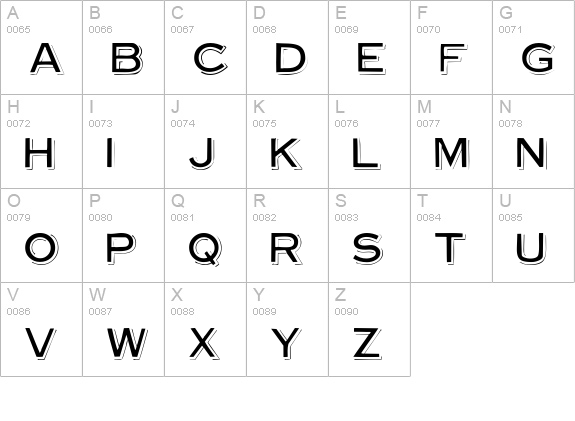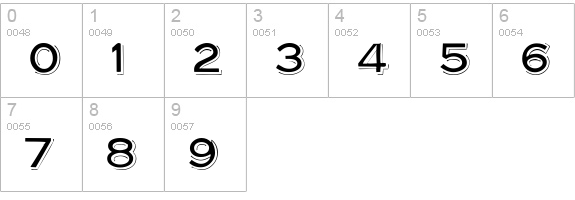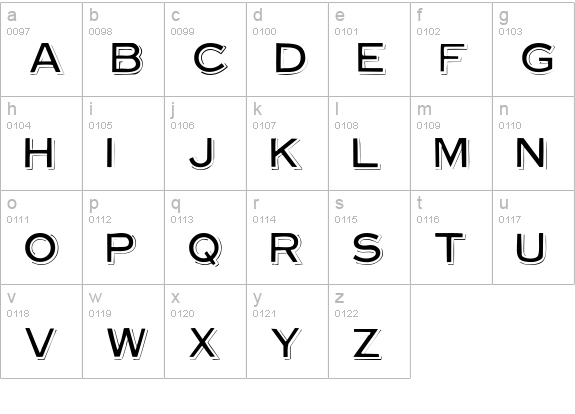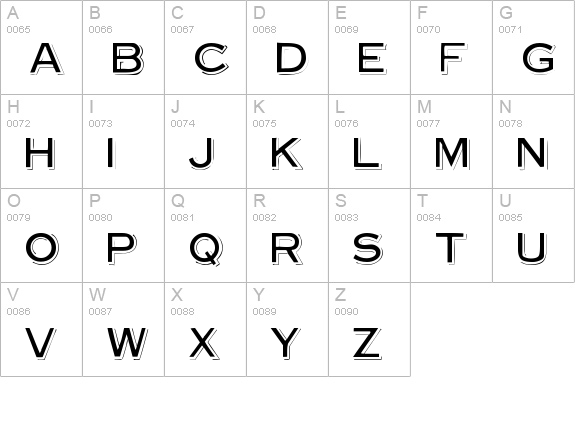
VinylCapsHeavy font is a bold and powerful typeface that exudes confidence and strength. With its thick and solid letterforms, this font is perfect for making a big impact on any design project. Whether used for headlines, logos, or titles, VinylCapsHeavy commands attention and demands to be noticed. This versatile font is suitable for a wide range of applications, from posters and banners to packaging and branding. Its strong and sturdy appearance gives off a sense of reliability and stability, making it a great choice for projects that require a bold and impactful statement. VinylCapsHeavy is designed with meticulous attention to detail, ensuring that each letter is perfectly crafted and visually appealing. The chunky and robust nature of this font adds a touch of uniqueness and personality to any design, making it stand out from the crowd. And the best part is, VinylCapsHeavy is available for free! Yes, you read that right. This incredible font can be freely downloaded at FontsMarket.com. So, whether you're a professional designer or a creative enthusiast, you can enjoy the benefits of this remarkable font without any cost. Don't miss out on the opportunity to enhance your designs with the striking presence of VinylCapsHeavy. Download it for free at FontsMarket.com and let your creativity soar to new heights.